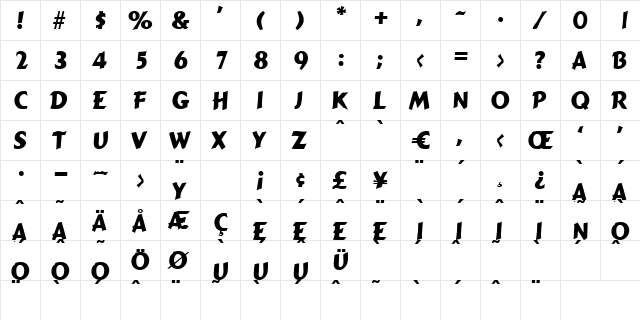
Firestone Regular
Design Context for Firestone Typeface
Firestone takes a measured approach to typography — its balanced proportions and neutral character make it a reliable workhorse for both digital and print work.